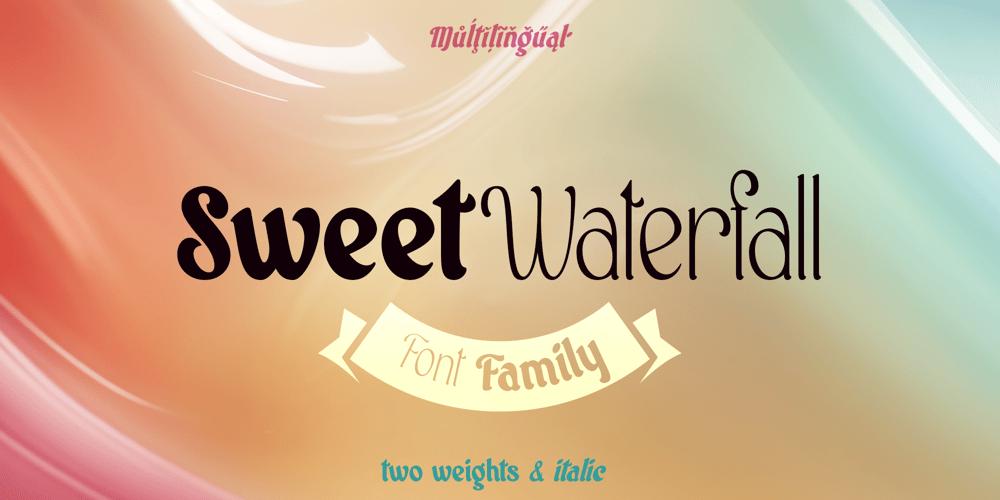
Sweet Waterfall Font Family was designed by Dmytro Poliakh and published by Sentavio. Sweet Waterfall contains 4 styles and family package options. Sweet Waterfall is calligraphic elegant friendly font family consists of four fonts:- Regular- Italic- Light- Light ItalicIt is interesting looking as Headline and Text both.It is perfect in such areas as:- Holiday’s Greetings- Luxury & Fashion- Food & Drinks- Beauty & Cosmeticsand much more.